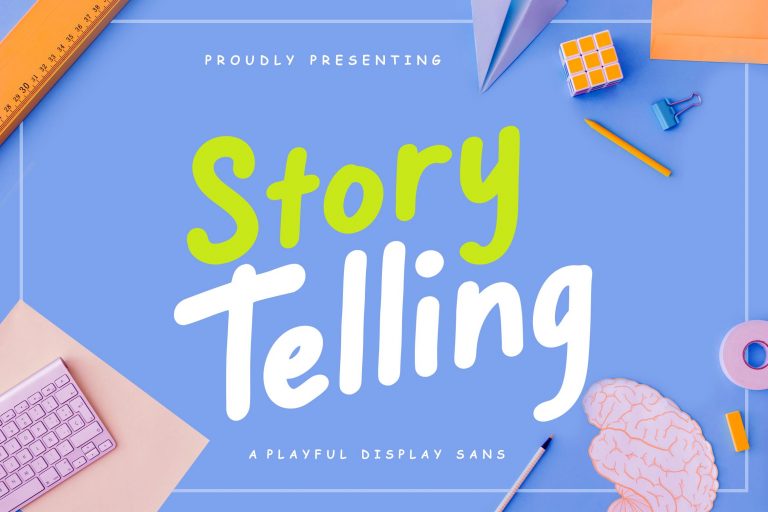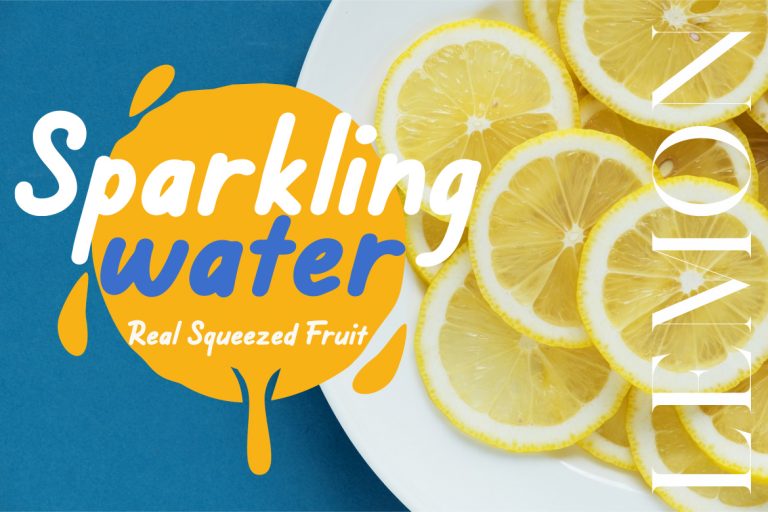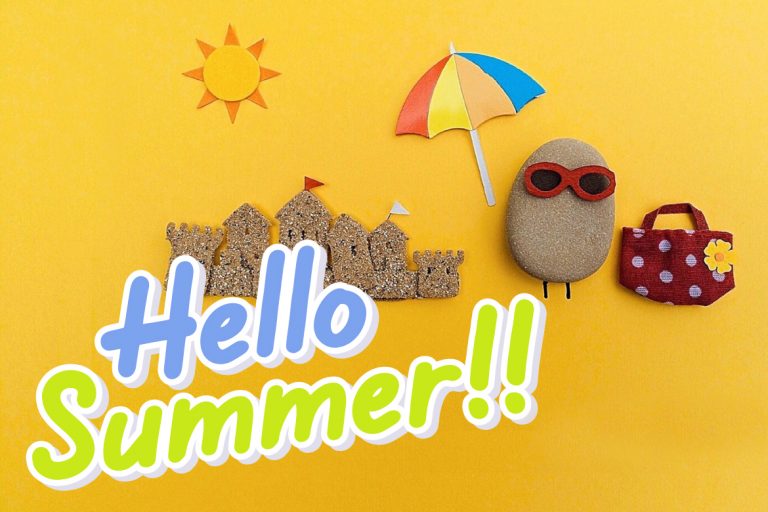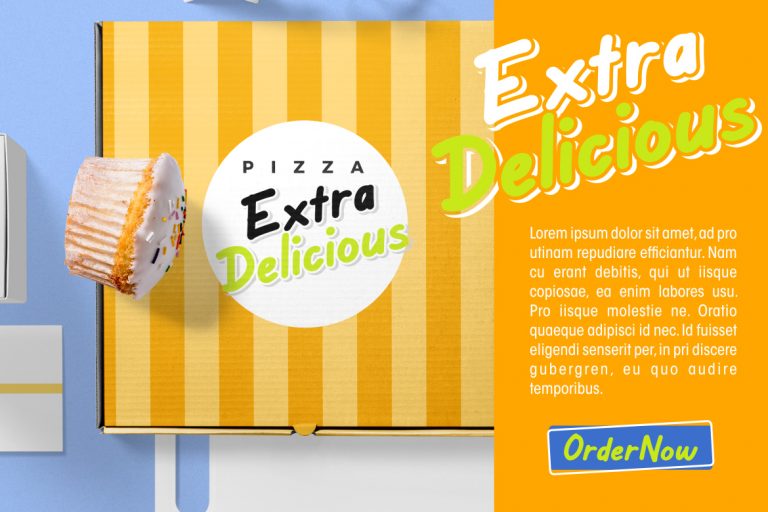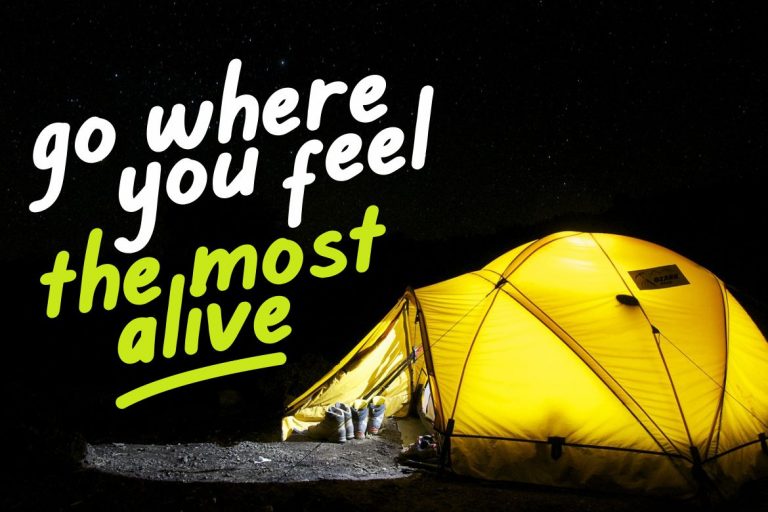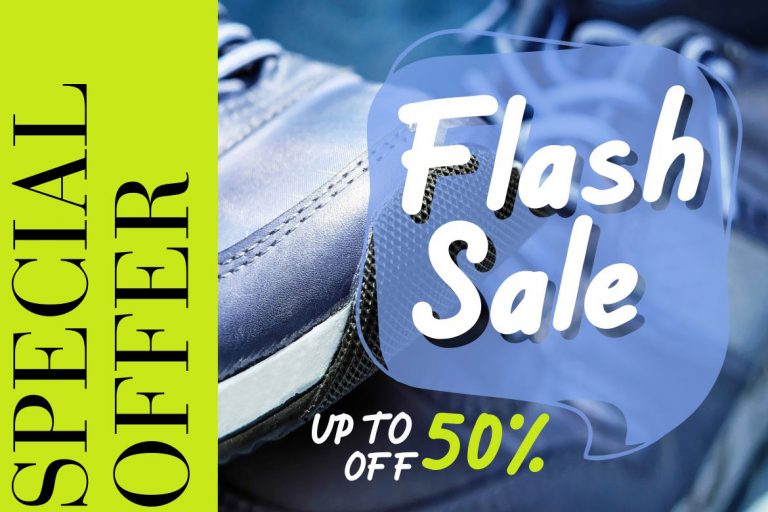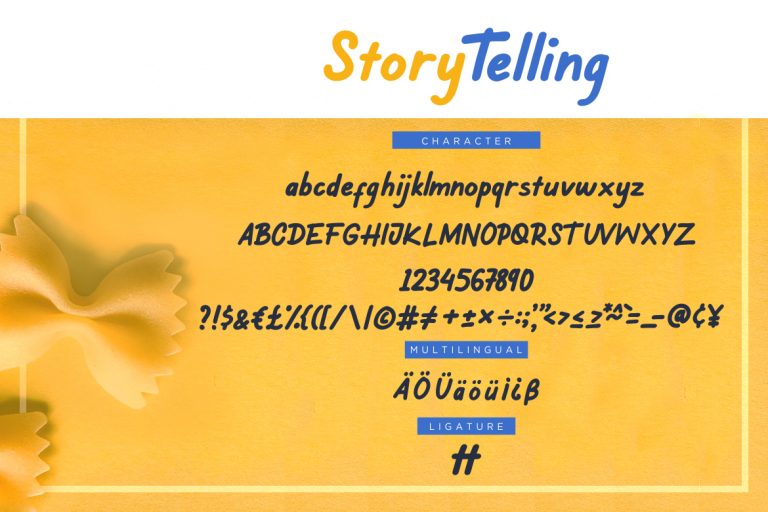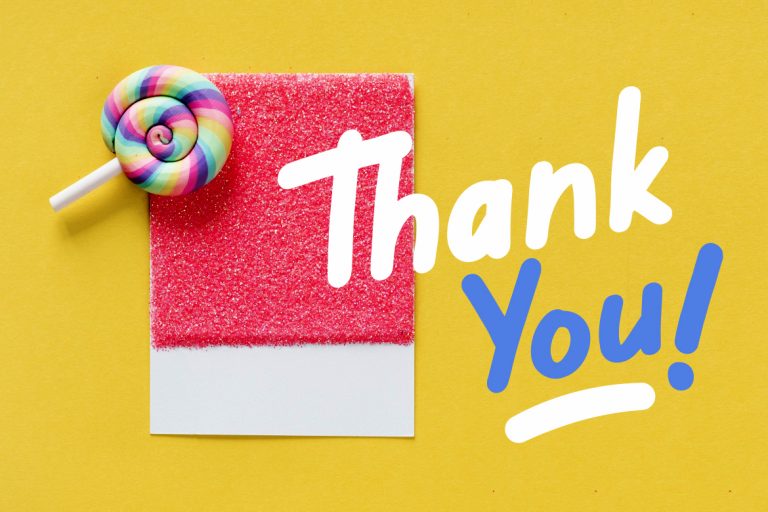
Story Telling Fun Font
Story Telling is a fun handwritten bold and fun display font. It is easy to read, big or small, brings joyful and happiness to all of us which makes it perfect for your branding needs!
- Standard glyphs
- Ligature
- Fonts include multilingual support for; ä ö ü Ä Ö Ü ß ¿ ¡